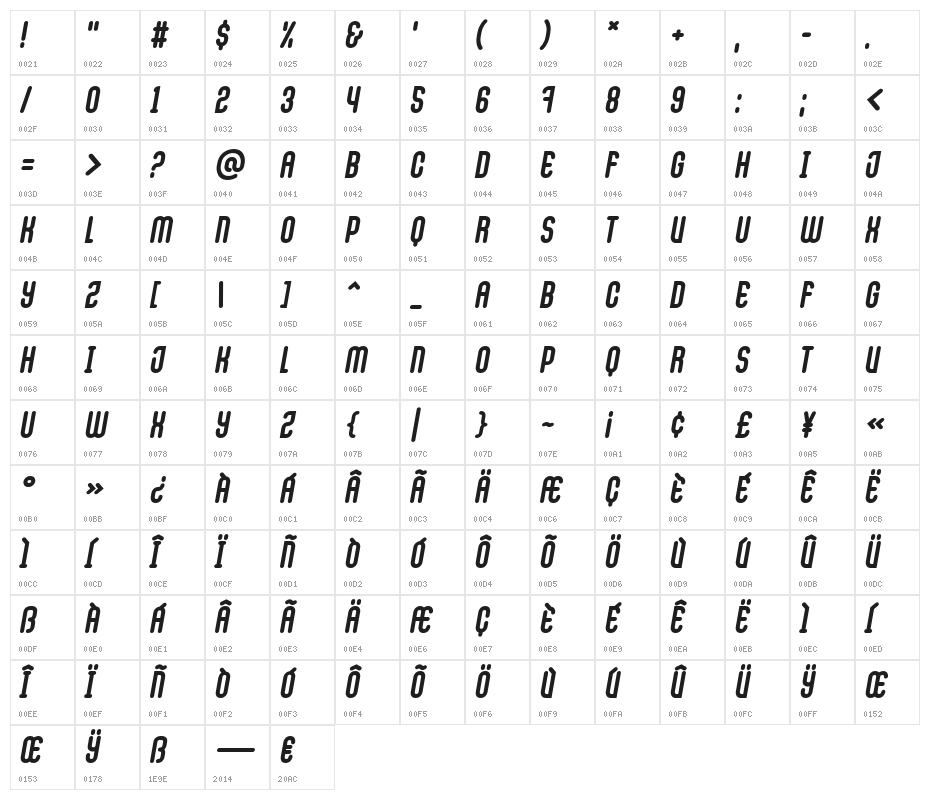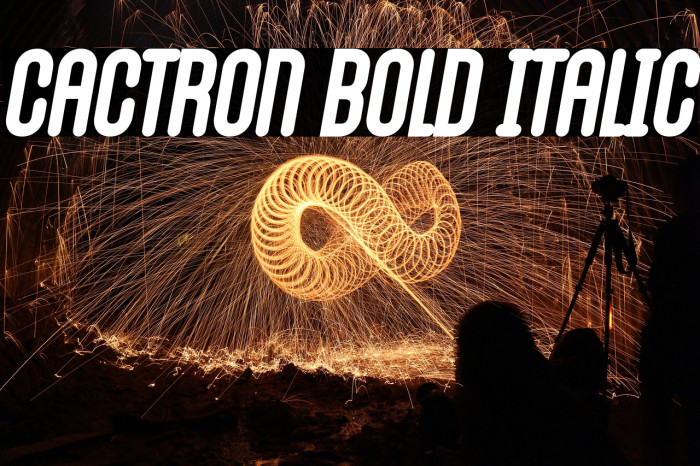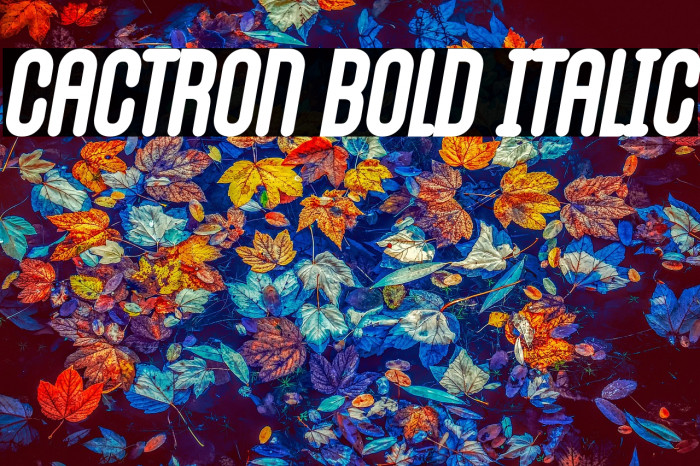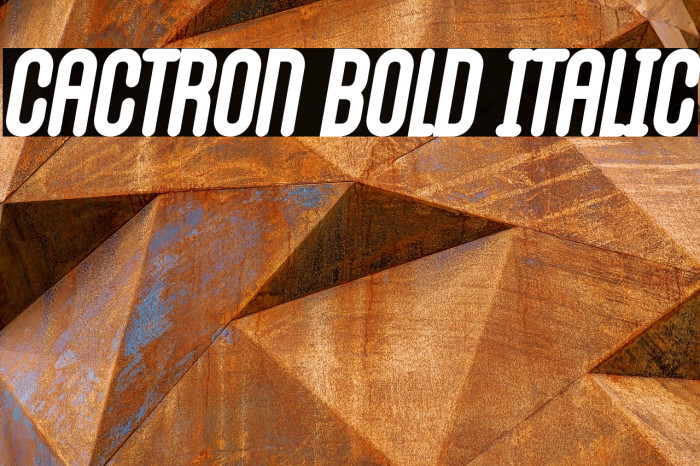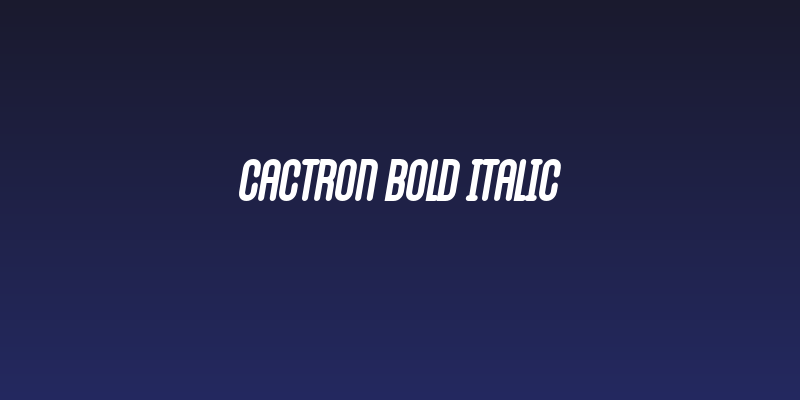
Cactron Bold Italic Font
Cactron Bold Italic Description
This font features a bold and italicized style with a modern and energetic flair. The characters are slightly condensed, giving a compact appearance while maintaining readability. Each letter has a smooth, rounded edge, contributing to a friendly and approachable look. The strokes are consistent in thickness, providing a medium contrast that enhances clarity. The font includes a full set of uppercase and lowercase letters, numerals, and a variety of special characters, making it versatile for different design needs.
| Proposed Projects | Ideal for branding, advertising, poster designs, and headlines that require a bold and modern touch. |